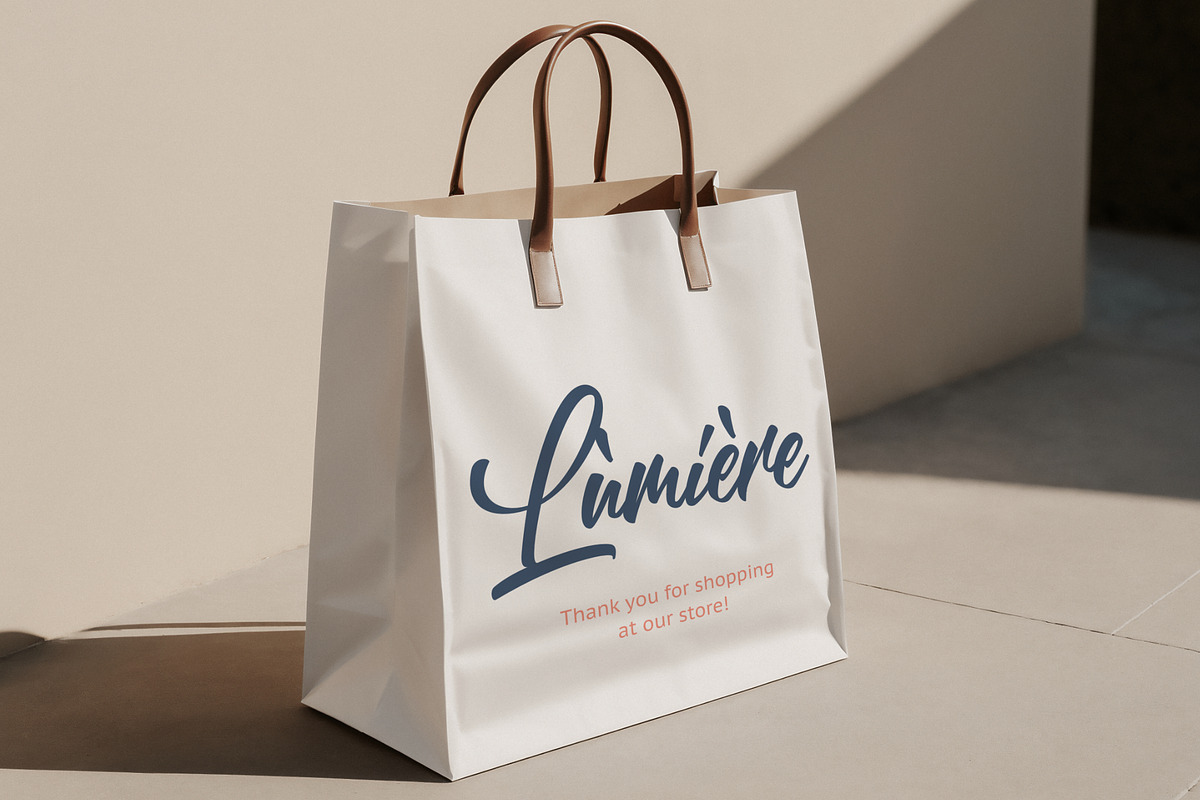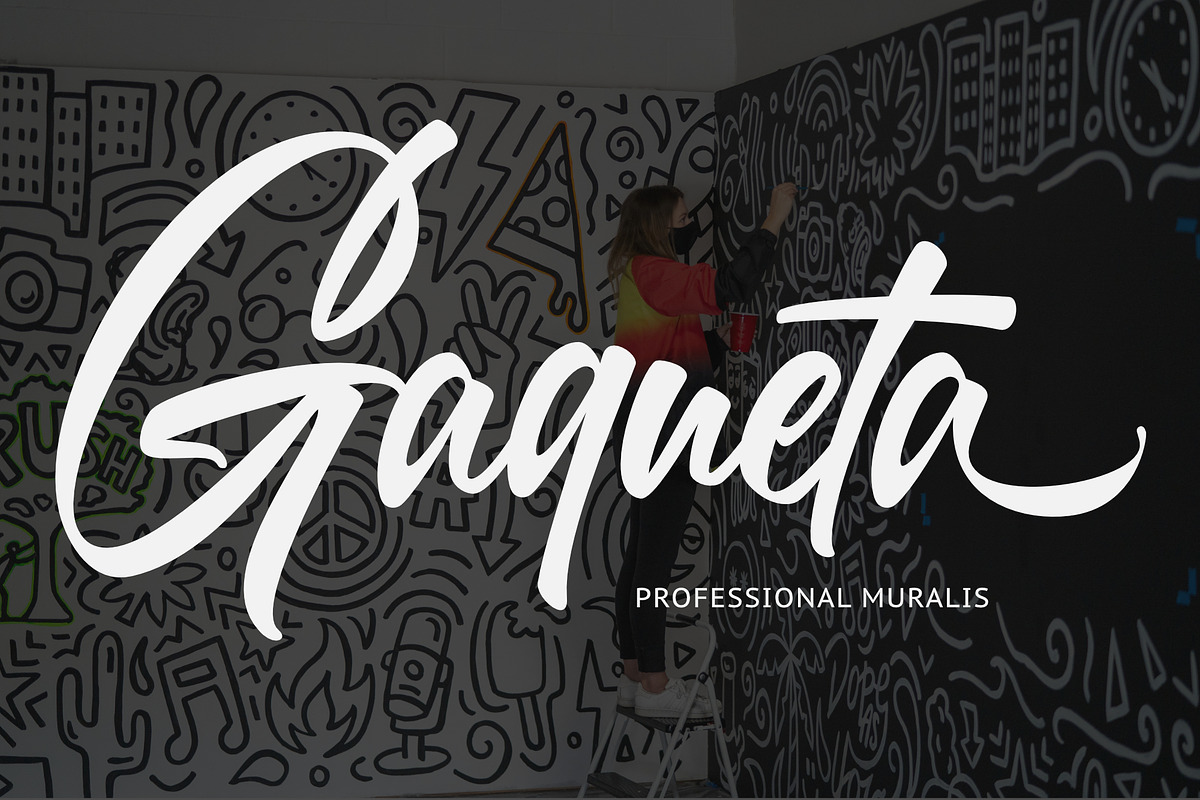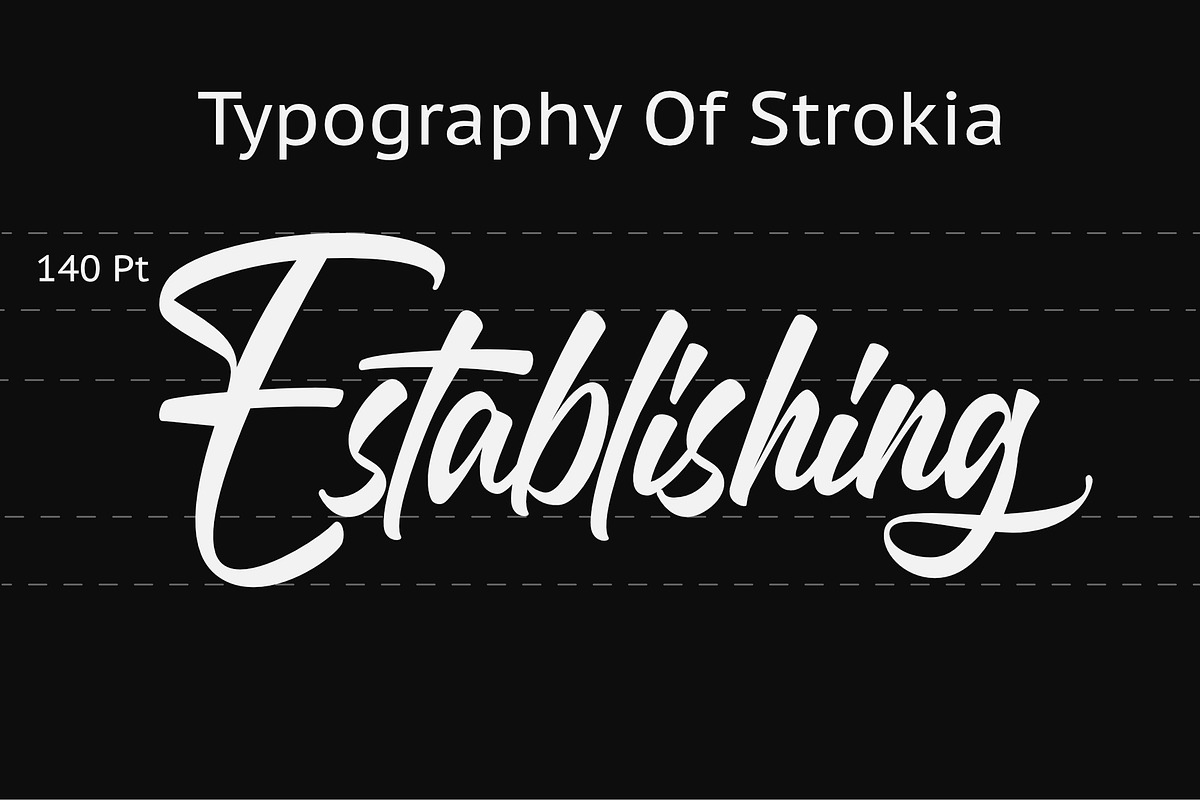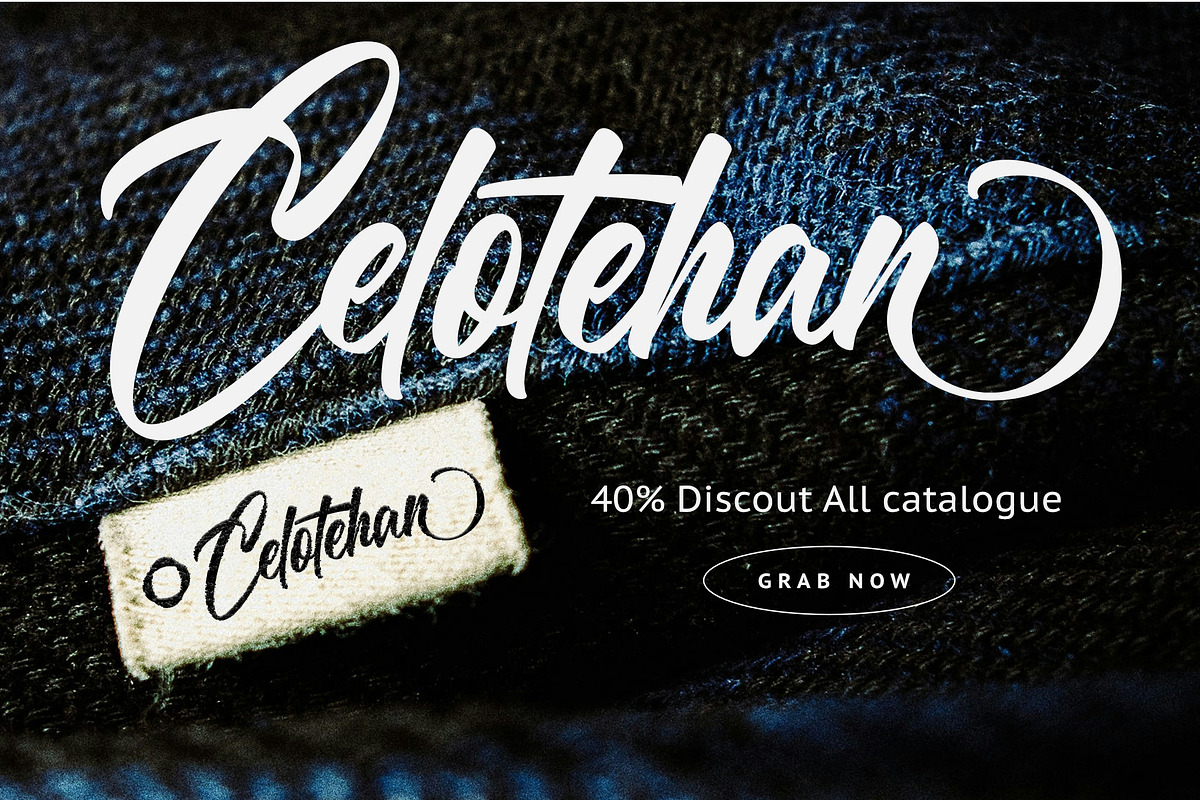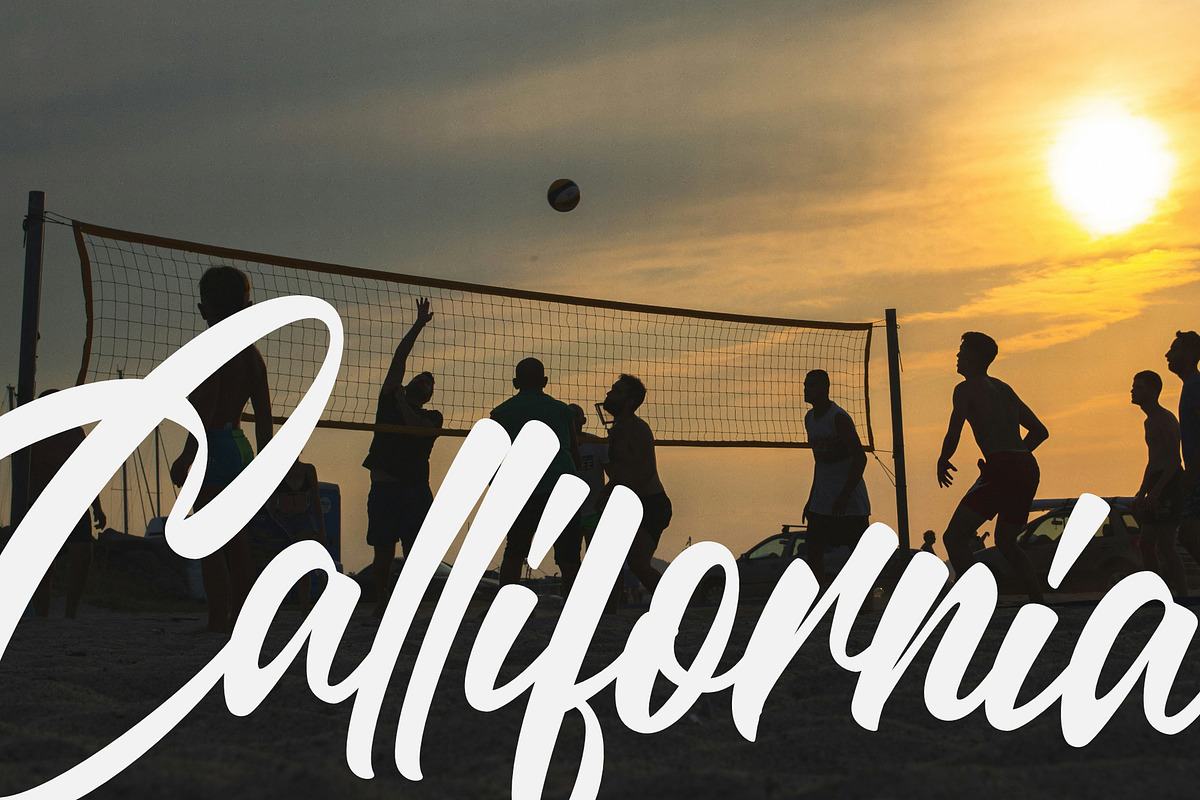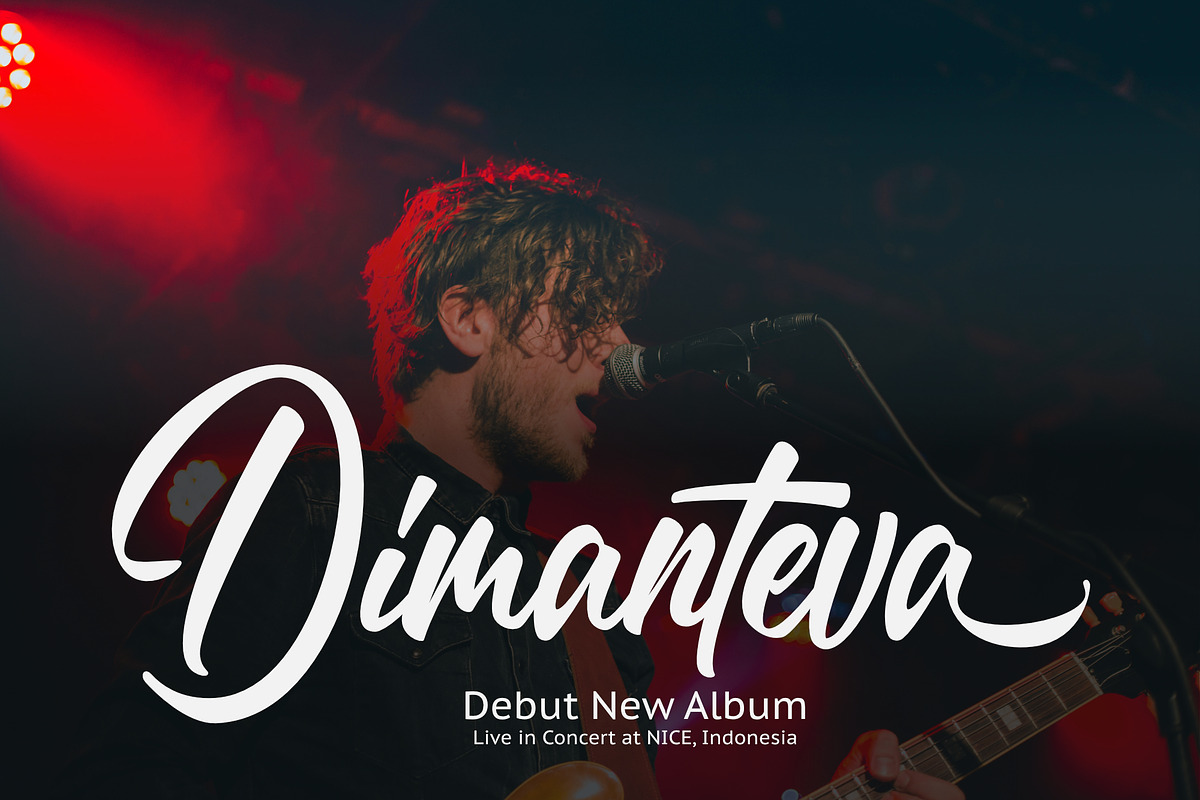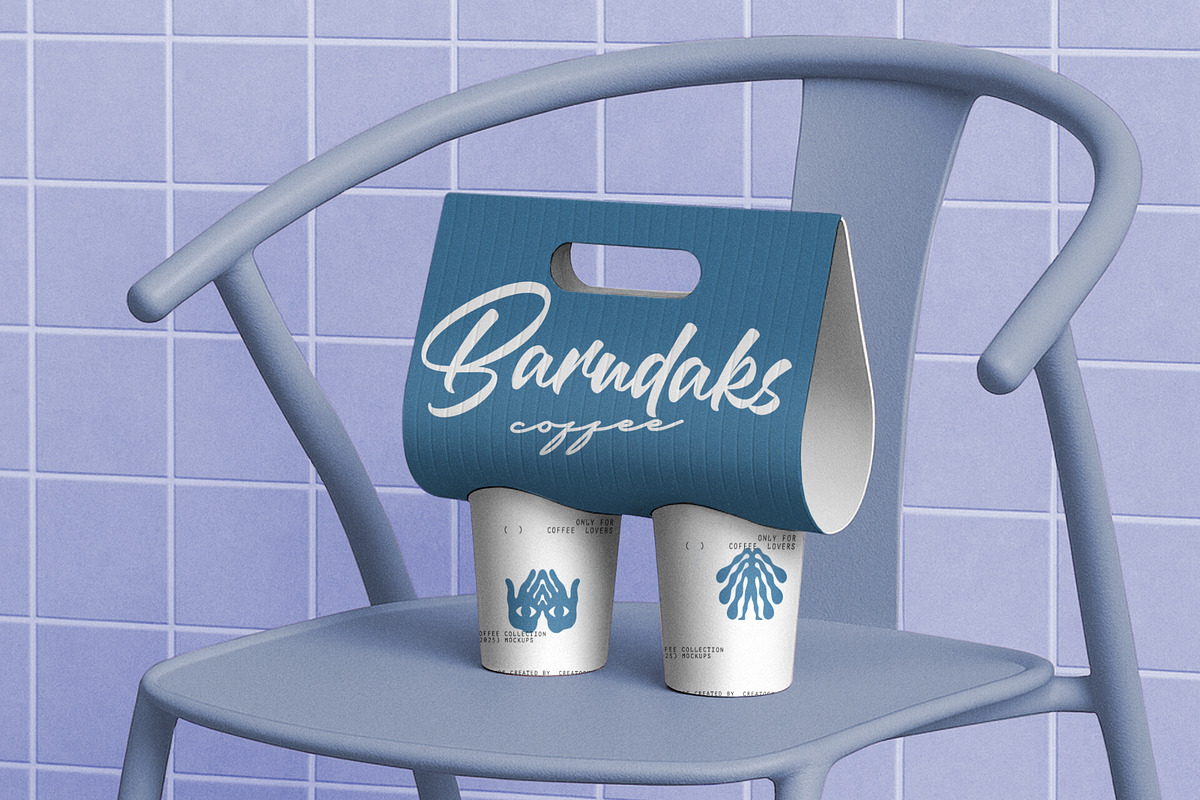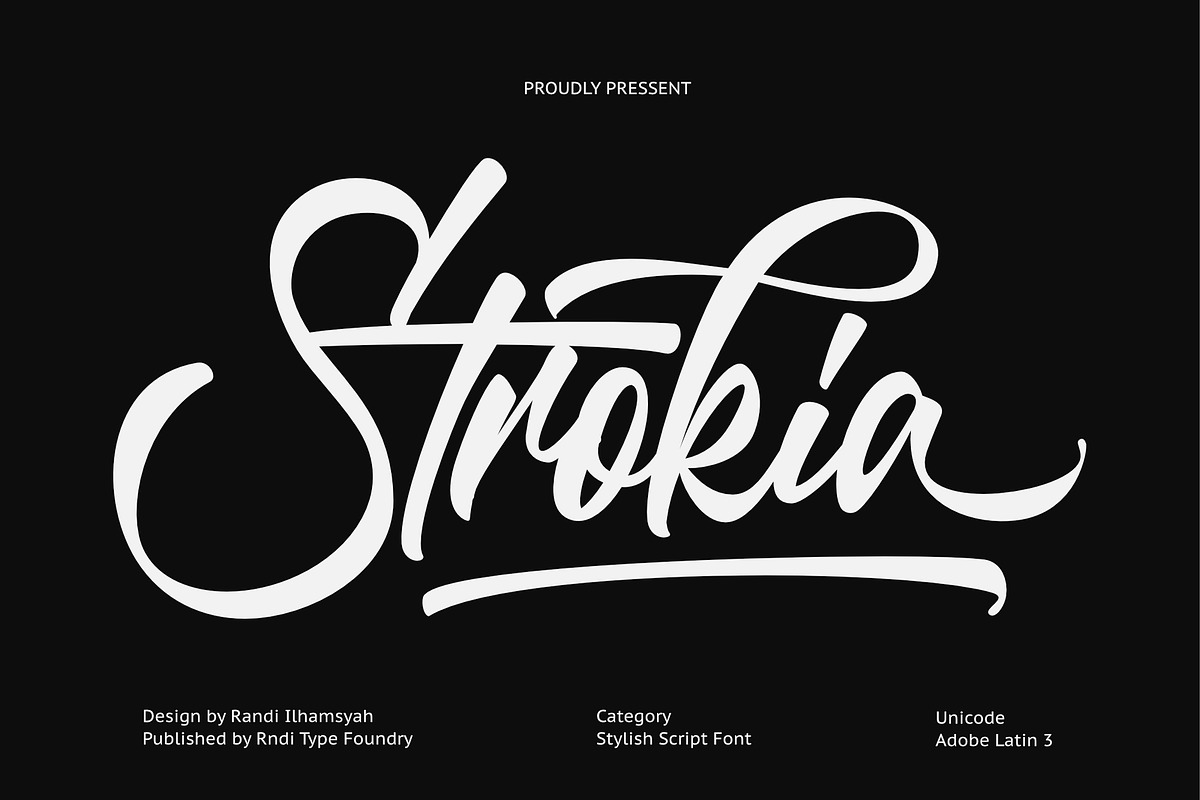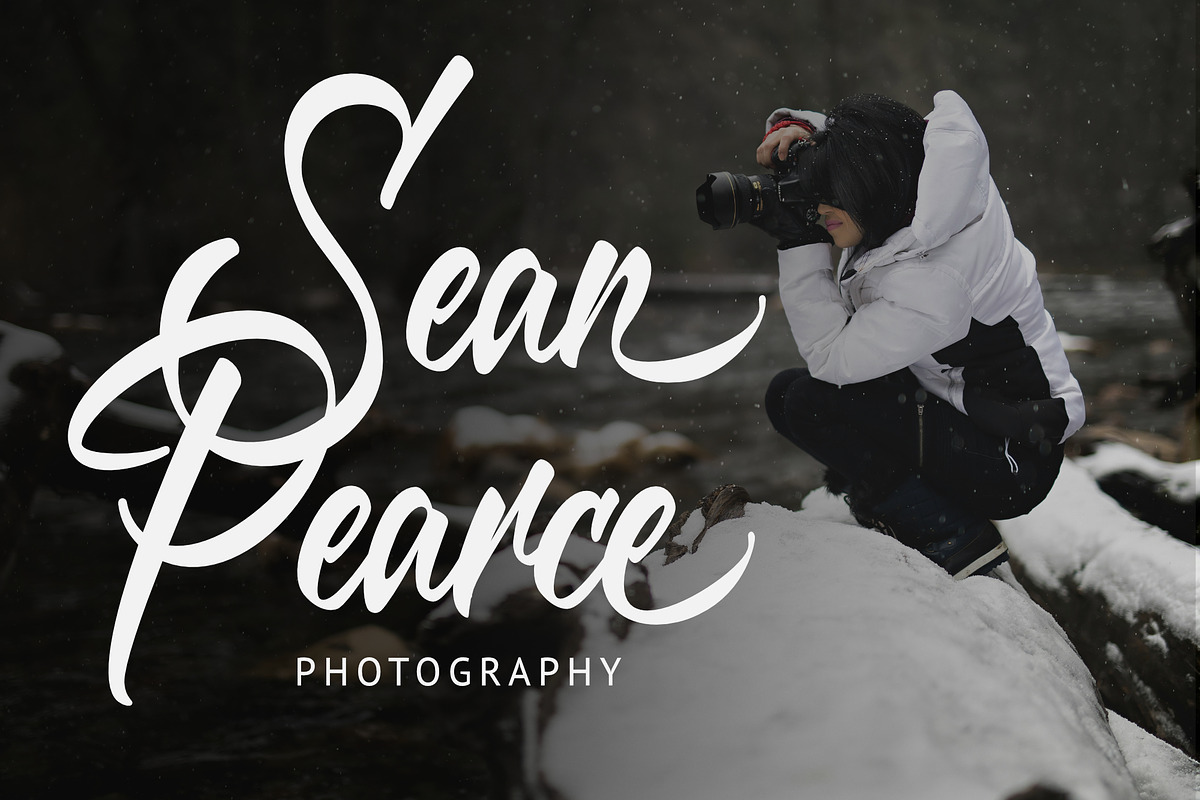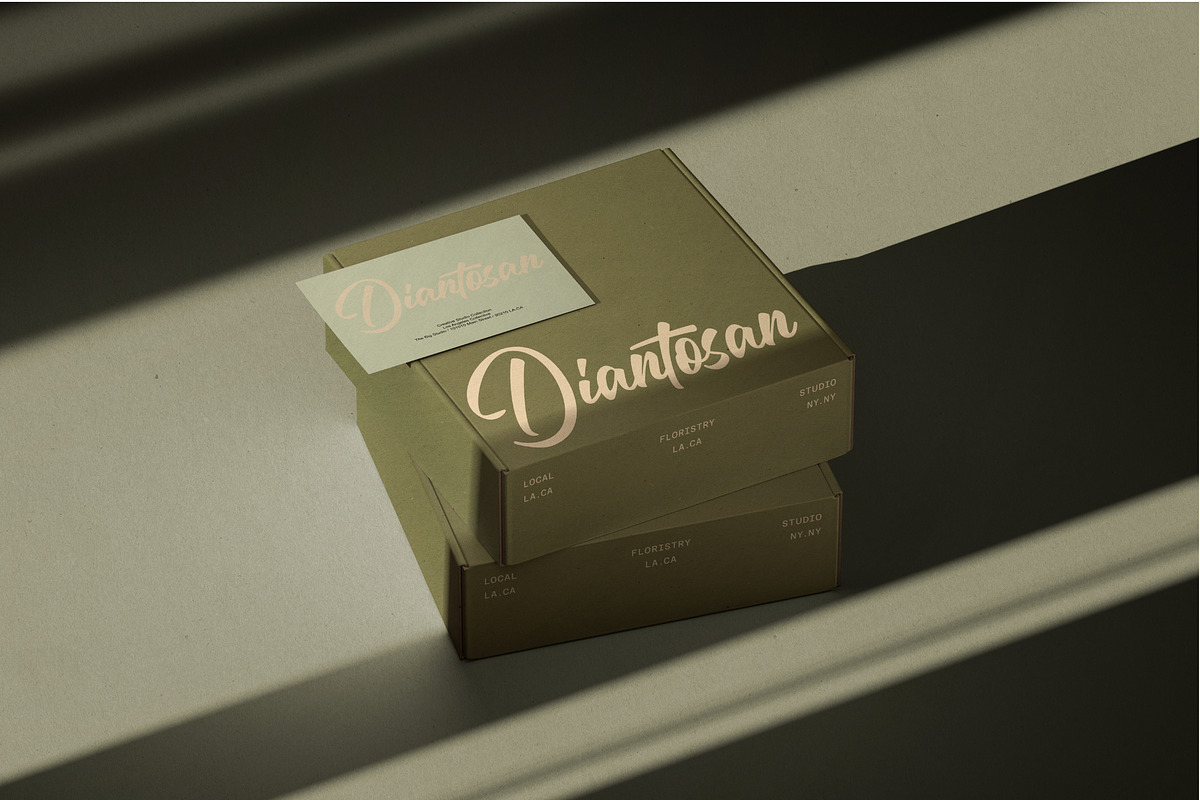
Strokia
Strokia is a bold, expressive brush script font designed for creatives who want their work to stand out. Inspired by the fluid motion of hand-lettering, every stroke carries energy and personality — from the sweeping capitals to the smooth, connected lowercase.
Built for versatility, Strokia shines across branding, packaging, poster design, apparel, photography watermarks, and social media content. Its natural rhythm and confident strokes make it equally at home on a luxury product label or a street-style merchandise drop.
The font includes a full character set with OpenType alternates and ligatures, giving designers the flexibility to customize letterforms and achieve a truly unique result every time. With Adobe Latin 3 unicode support, Strokia is ready for multilingual projects across 100+ languages.
Uppercase & lowercase letters
Numerals & punctuation
OpenType alternates & ligatures
Multilingual support (Adobe Latin 3)